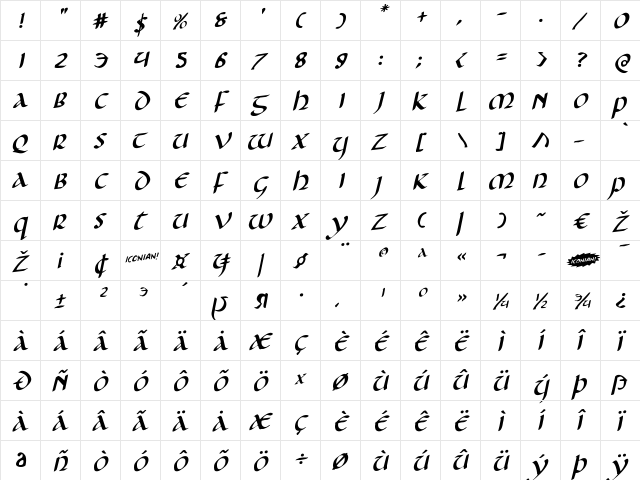
Foucault Rotalic Italic
Design Context for Foucault Rotalic Typeface
Foucault Rotalic takes a measured approach to typography — its balanced proportions and neutral character make it a reliable workhorse for both digital and print work. The slanted form adds forward momentum and visual energy.
Pro Tip: Use Foucault Rotalic for emphasis, pull quotes, and subheadings where its slanted energy can add rhythm to the layout.